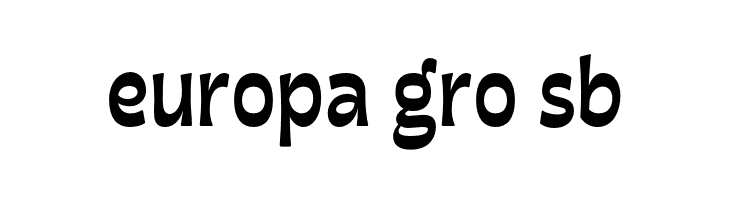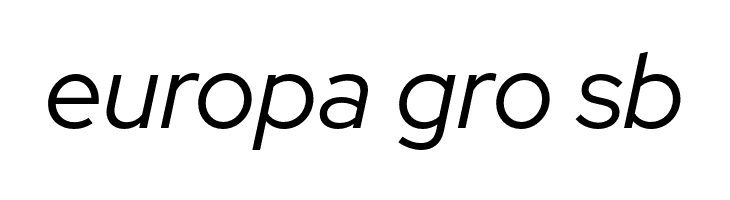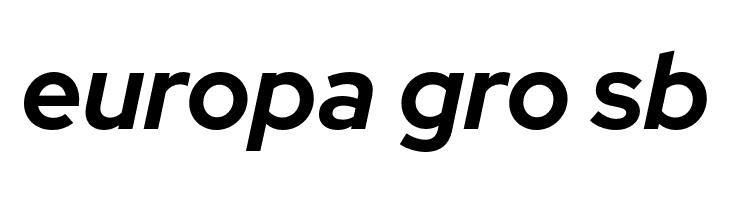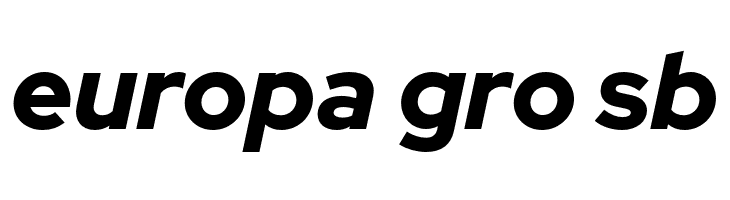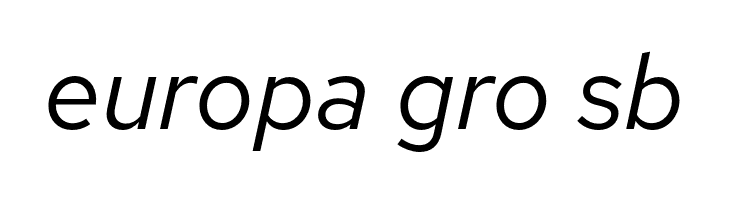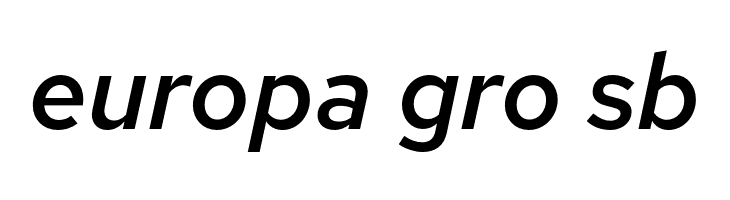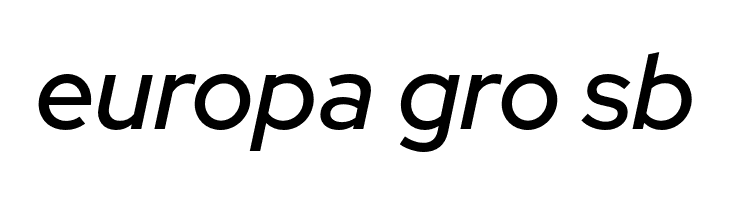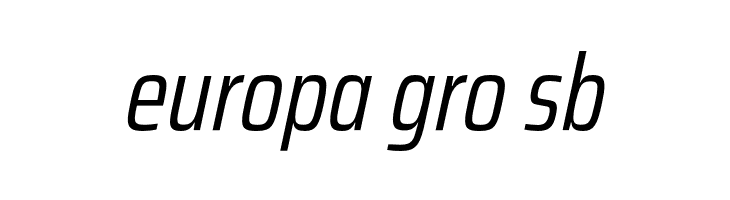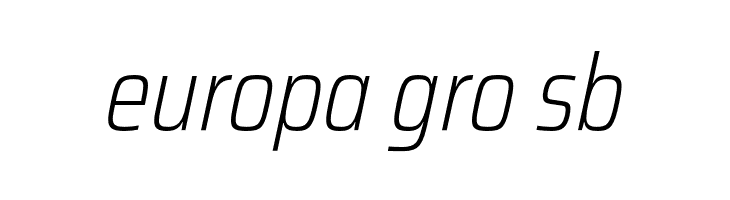
A playful, hand-drawn font with a whimsical and casual style.
A modern, italic sans-serif font with clean lines and balanced spacing.
A bold, italicized font with a modern and clean design.
A bold, italicized font with a modern and sleek appearance.
A modern, italic sans-serif font with clean lines and excellent legibility.
A modern, italicized typeface with clean lines and balanced proportions.
A modern, italic sans-serif font with medium weight and low contrast.
A sleek, italicized, extra-condensed font with a modern and dynamic style.
A sleek, modern, condensed italic font with an extra light weight.